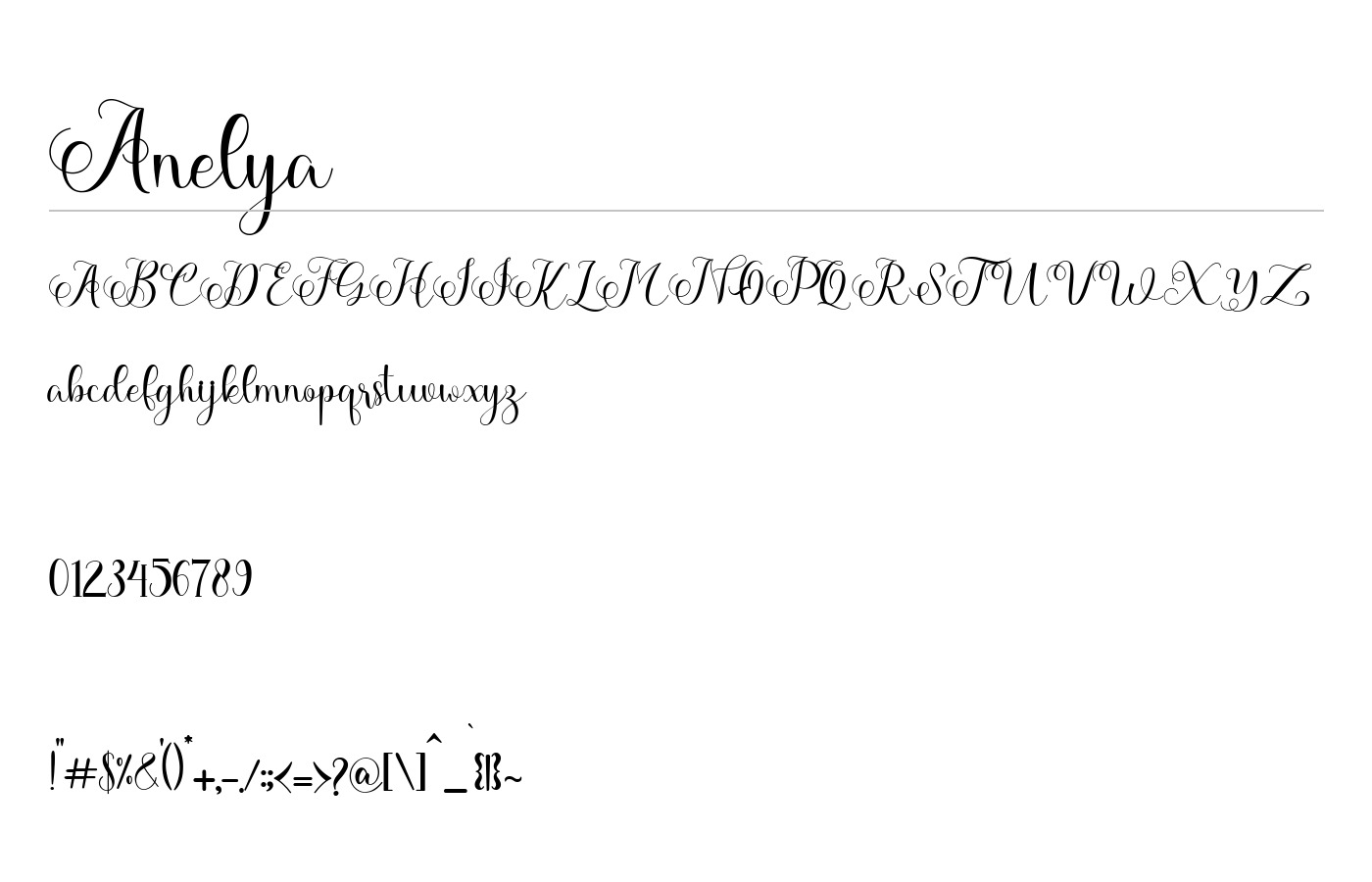
Anelya is a delicate script font that features elegant, flowing letterforms with graceful swirls and a thin stroke weight, giving it a refined and sophisticated appearance. Its ornate uppercase letters paired with more simplified, yet still stylish, lowercase characters make it perfect for luxury branding, wedding invitations, and upscale editorial design. This font’s charming and romantic personality works beautifully where a touch of elegance and femininity is desired.
Anelya Font
About Anelya Font